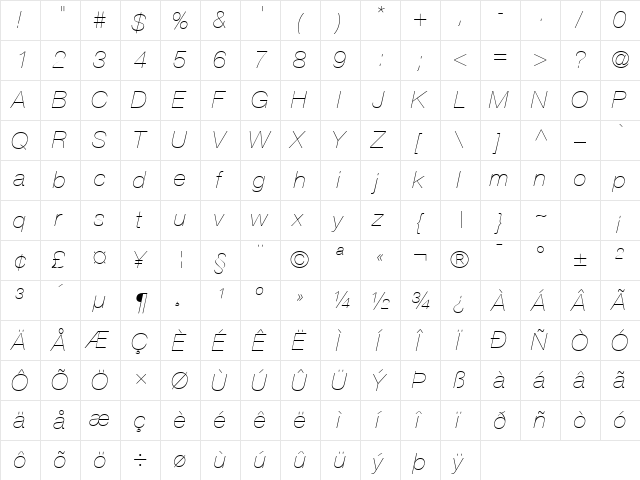
Context Reprise Light SSi Extra Light Italic Font Preview
Design Context for Context Reprise Light SSi Typeface
Context Reprise Light SSi offers clean, dependable letterforms without strong stylistic allegiance, making it a practical choice for designers who need flexibility. The dynamic lean of this cut emphasises speed and emphasis in any layout. Its slender proportions lend an understated elegance to any composition.
Pro Tip: Use Context Reprise Light SSi for emphasis, pull quotes, and subheadings where its slanted energy can add rhythm to the layout.